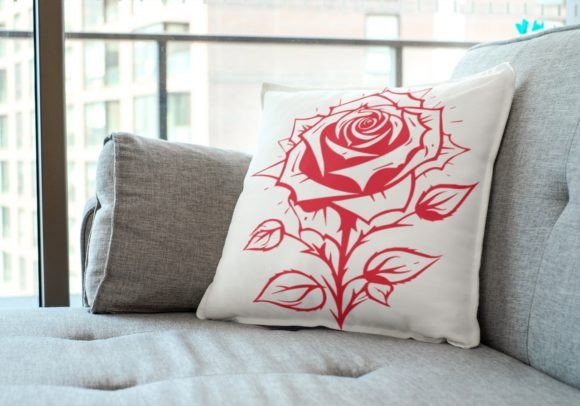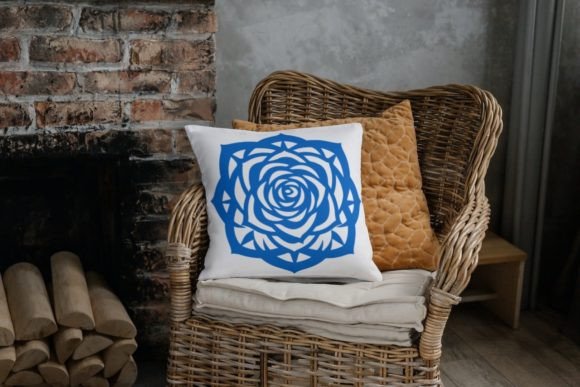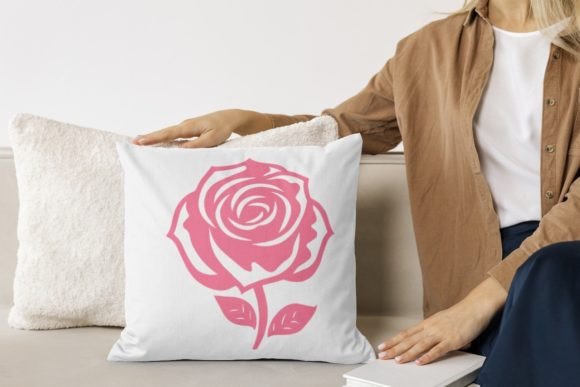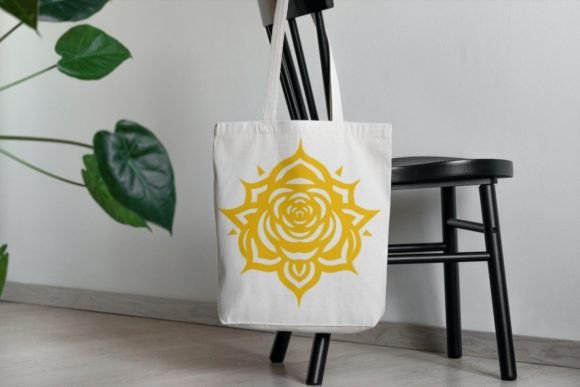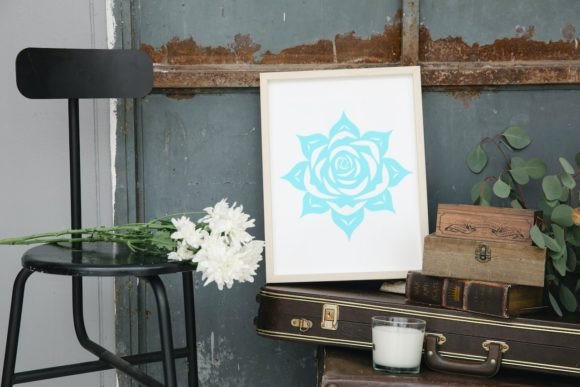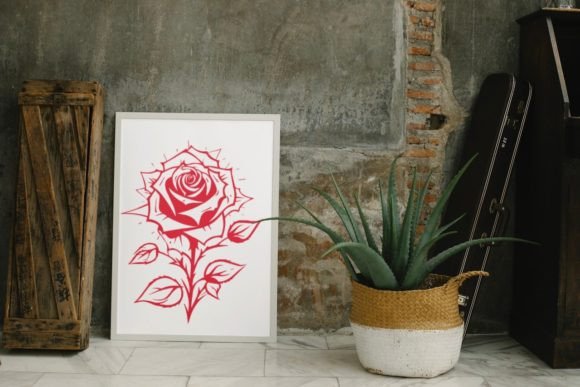
Introduction to Rose Morning Font Font
Fonts play a crucial role in design, and the Rose Morning Font font is a typeface that brings both character and versatility to any project. Whether you’re working on a branding project, a website, or a print design, the Rose Morning Font font offers a unique style that can elevate your work.
Introducing the Rose Morning Dingbats Fonts Collection.
36 Unique Rose Styles: Immerse yourself in the tranquil beauty of 36 distinct rose-inspired designs, each capturing the essence of a fresh morning bloom From delicate petals to intricate details, the Rose Morning Dingbats Fonts will infuse your projects with a touch of floral elegance.
Key Features of Rose Morning Font Font
Why Choose Rose Morning Font Font?
The Rose Morning Font font is more than just a typeface – it’s a design tool that helps you communicate your message with style and clarity. Its unique character set and versatile design make it suitable for a wide range of applications, from elegant invitations to bold headlines.
With its carefully crafted letterforms and balanced proportions, the Rose Morning Font font ensures readability and visual appeal across all mediums.
What makes Rose Morning Font font special?
The Rose Morning Font font stands out with its unique design, exceptional readability, and versatility across various design applications.